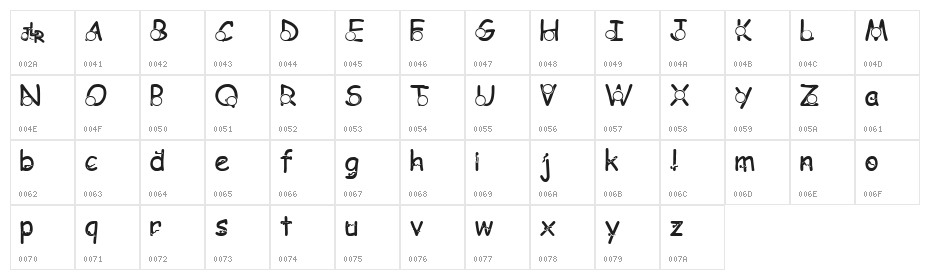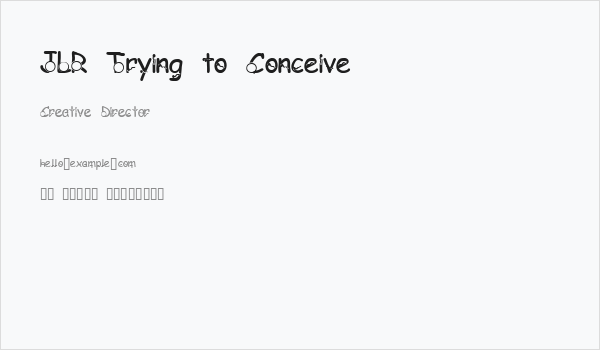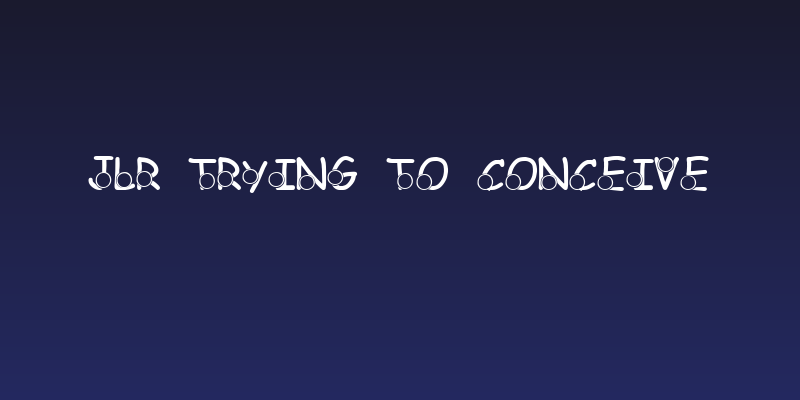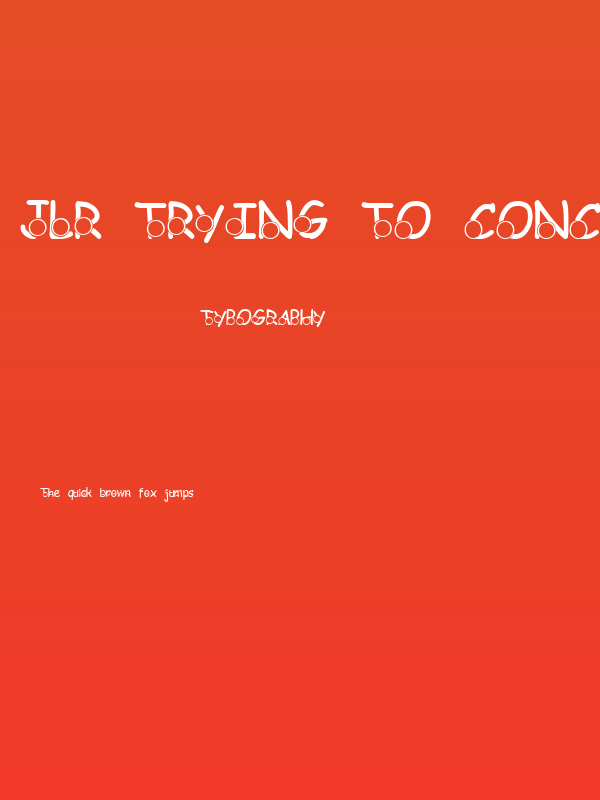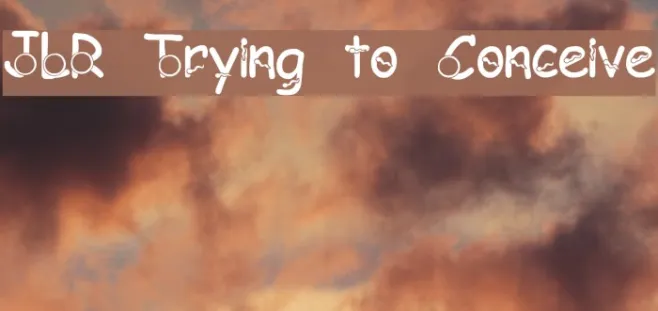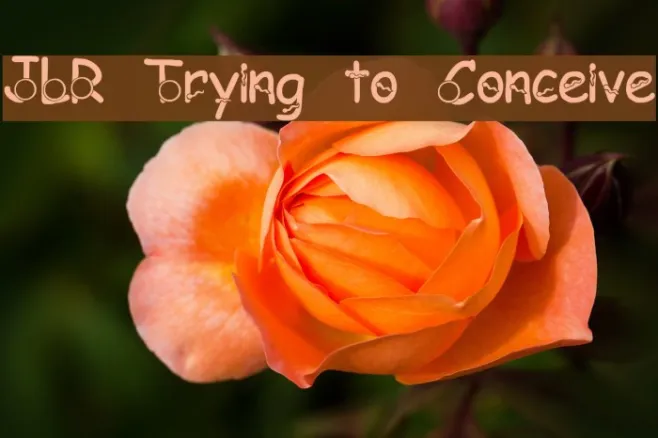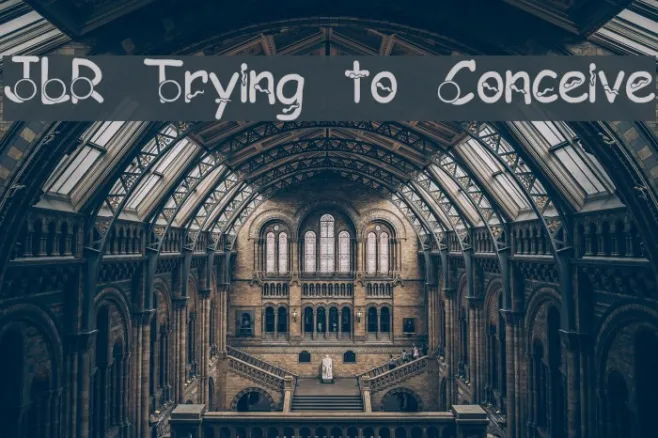
JLR Trying to Conceive Font
JLR Trying to Conceive Description
This font features a playful and whimsical design, characterized by its unique integration of circular and linear elements within each character. The letters exhibit a bold and decorative style, with exaggerated curves and loops that create a sense of movement and energy. The uppercase and lowercase letters maintain a consistent theme, with the lowercase letters offering a slightly more compact and rounded appearance. The numbers and special characters follow the same playful aesthetic, making the font suitable for creative and informal applications. The overall design is eye-catching and distinct, making it ideal for projects that require a touch of fun and creativity.